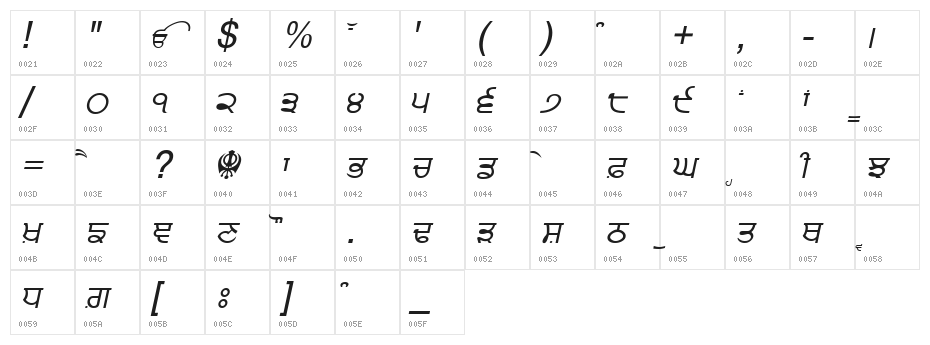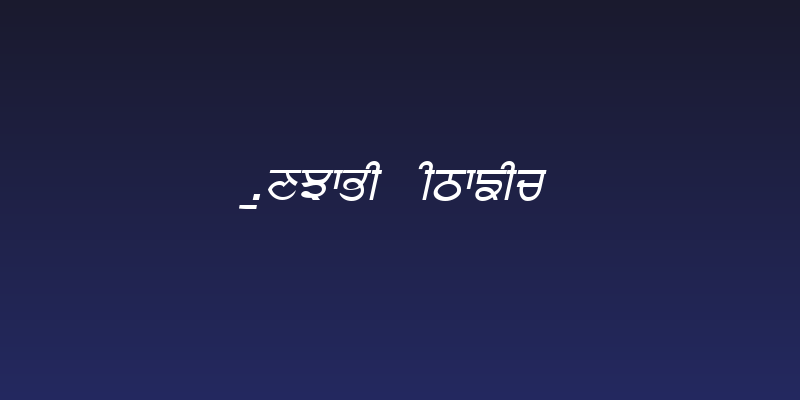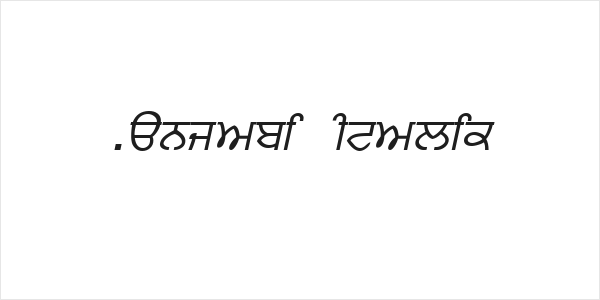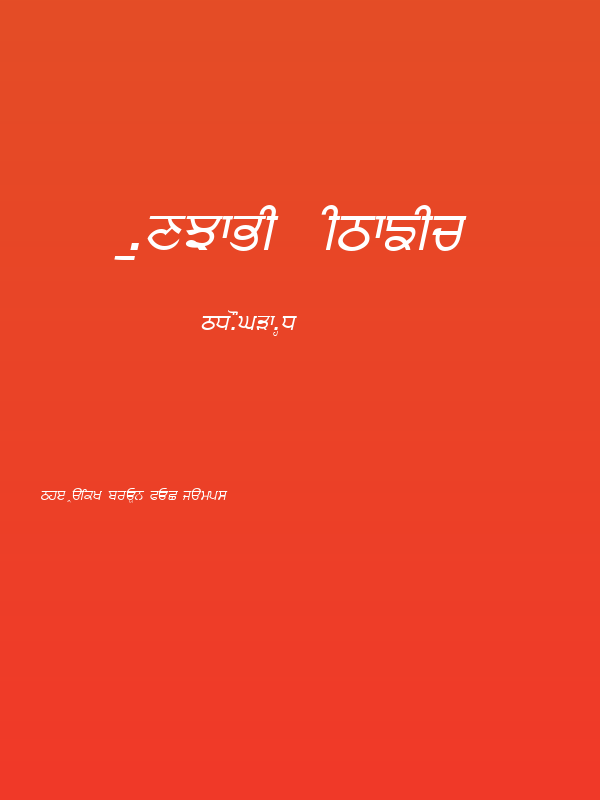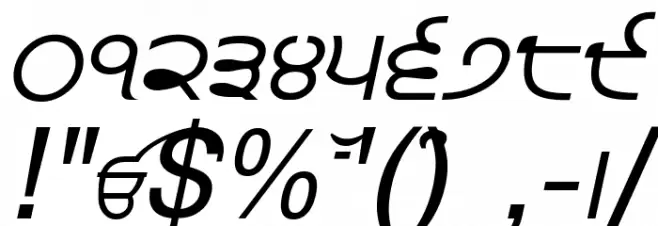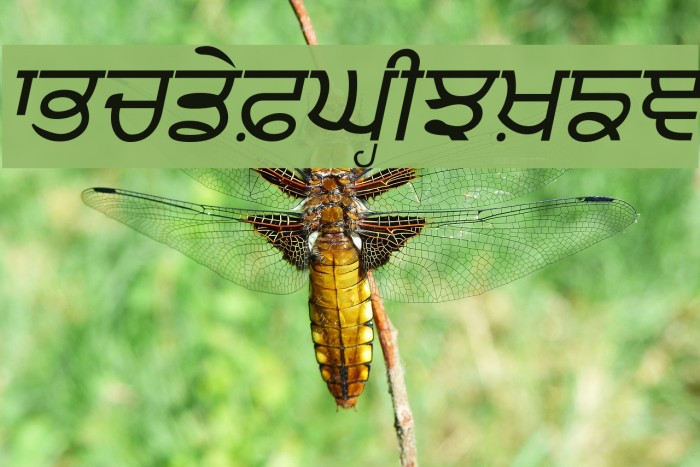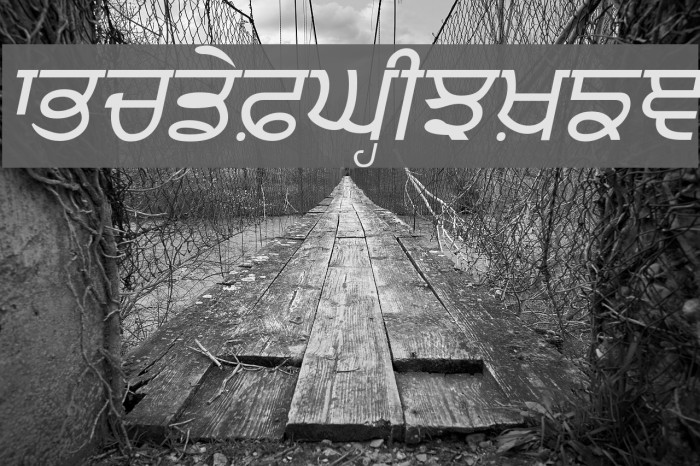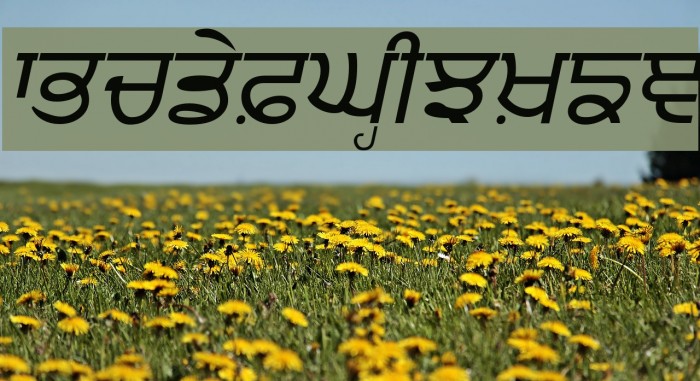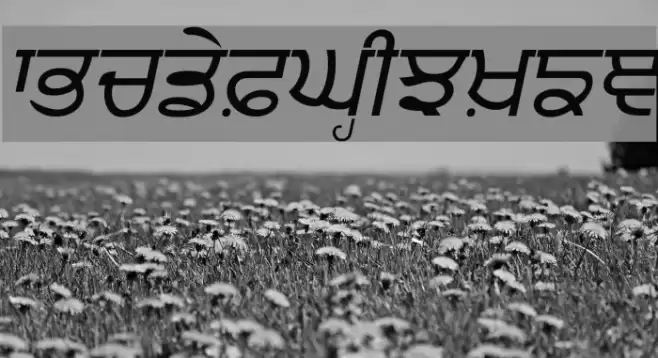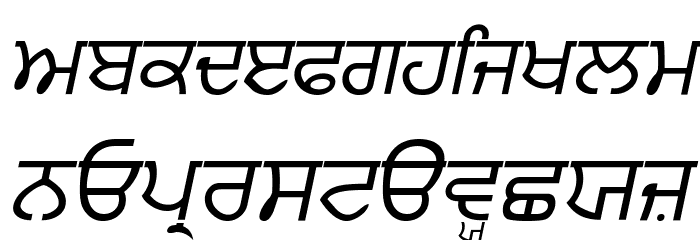
Punjabi Italic Font
Punjabi Italic Description
This font features a unique blend of traditional Punjabi script with an italicized flair, giving it a dynamic and flowing appearance. The characters are elegantly curved, with a noticeable slant that adds a sense of motion and sophistication. The strokes are moderately thick, providing a balanced contrast that enhances readability while maintaining an artistic style. The numerals and special characters are designed to match the script's aesthetic, ensuring a cohesive look across all text elements. This font is particularly suitable for projects that require a cultural touch with a modern twist.